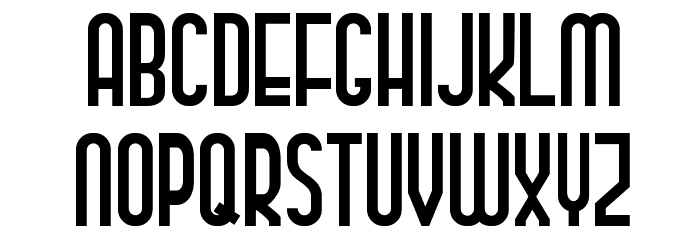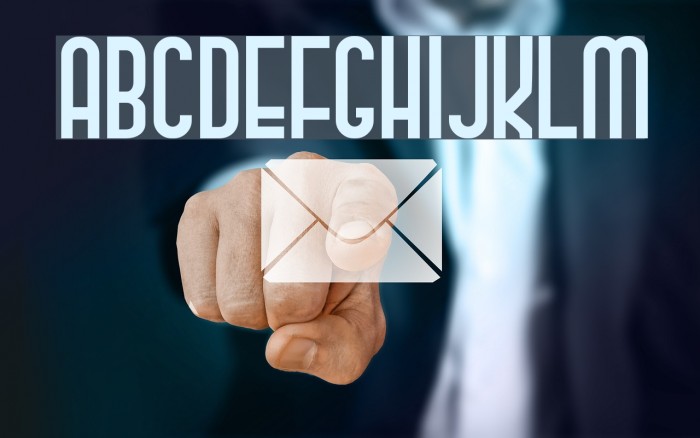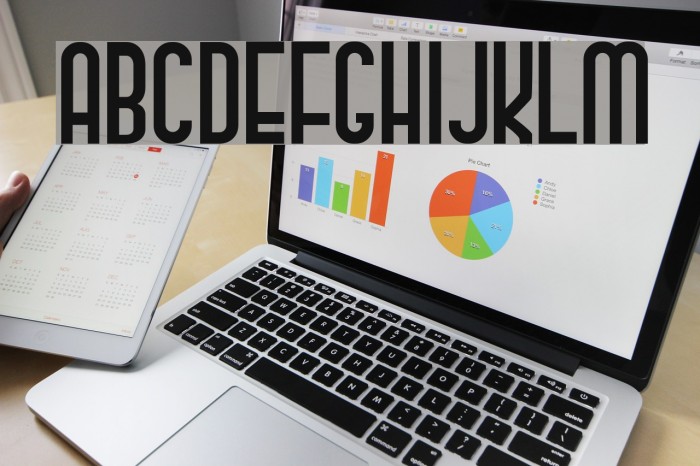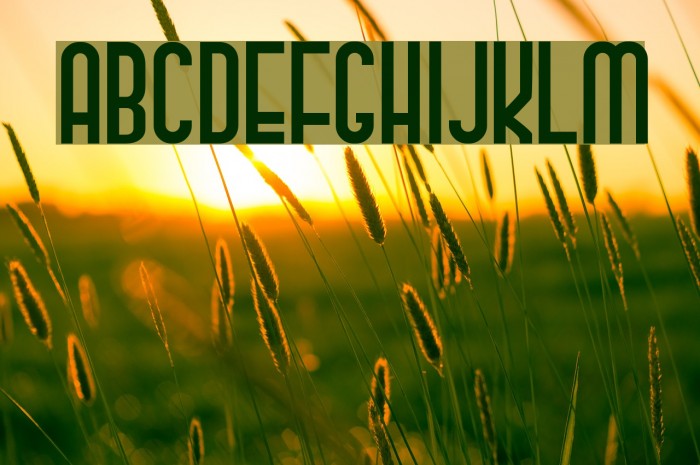
Classy Beautiful 2 Font
Classy Beautiful 2 Description
This font features a modern and sleek design with tall, narrow characters that convey a sense of elegance and sophistication. The uniform stroke width and clean lines give it a contemporary feel, making it suitable for a variety of design applications. The uppercase letters are particularly striking, with a geometric influence that adds to its visual appeal. The font's structure is consistent, with each letter maintaining a similar height and width, creating a harmonious and balanced appearance. Its simplicity and clarity make it highly legible, even at smaller sizes.
A modern, sleek font with tall, narrow characters and uniform stroke width from Uncategorized fonts.
- Proposed Projects: Ideal for branding, advertising, and editorial design projects where a modern and sophisticated look is desired.
- Use Case: Headlines, Logos, Branding